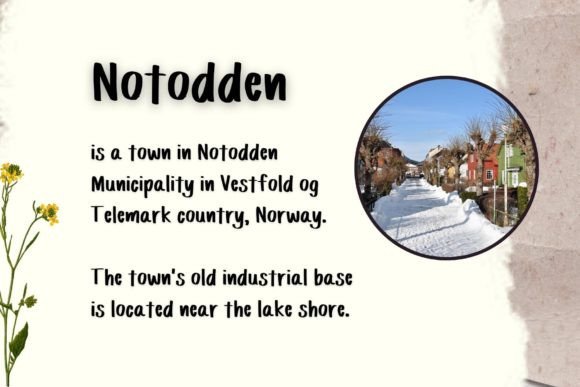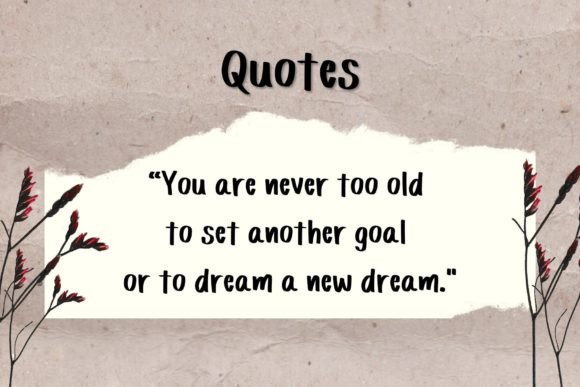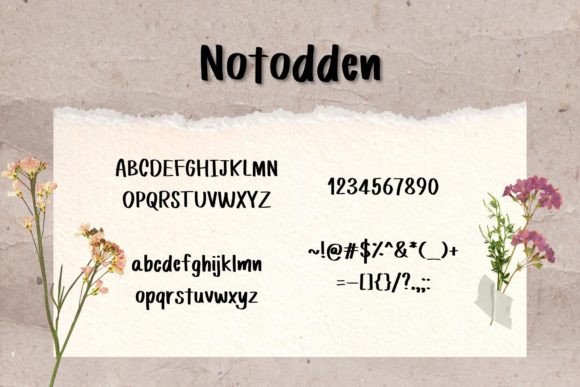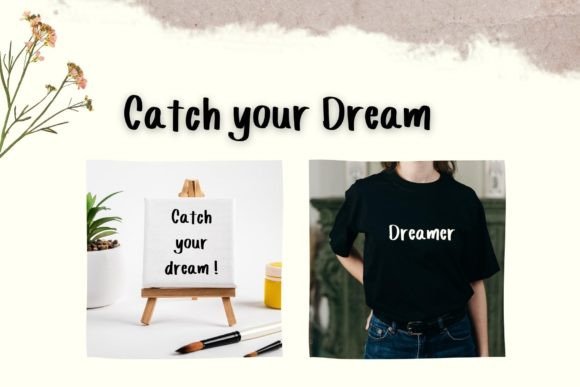
Introduction to Notodden Font
As a designer, there’s nothing quite like the thrill of brainstorming a new creative project. The blank canvas stares back at you, begging to be filled with color, texture, and personality. And then, it happens – the spark of inspiration strikes, and you know exactly what you want to create. For many of us, that spark is fueled by the perfect font. Enter the Notodden Font, a delightful script design that’s as fun to use as it is functional.
With its playful, handwritten feel and versatility across a wide range of applications, the Notodden Font is an absolute game-changer for designers. Whether you’re working on a t-shirt design, a digital presentation, or a heartfelt greeting card, this high-quality font is sure to elevate your project to the next level. And the best part? It’s available for free download with a transparent background, making it a valuable resource for any design project.
- Designed with a modern and sleek aesthetic, making it perfect for digital and print media
Honest Review: Notodden Font
I recently came across the Notodden Font, a high-quality design resource that caught my attention. As a designer, I’m always on the lookout for new and interesting fonts to elevate my creative projects.
The Notodden Font is a free download, which is a major plus in my book. It’s also available with a transparent background, making it super versatile and easy to work with. I love how it adds a touch of sophistication to any design.
- ✨ High-quality design with crisp, clean lines
- ✨ Versatile and easy to use
- ✨ Transparent background for seamless integration
- ⚠️ Limited character set (only a few weights and styles)
- ⚠️ May not be suitable for complex or large-scale designs
Overall, I’m really impressed with the Notodden Font. It’s a solid addition to any designer’s toolkit, and I appreciate the fact that it’s free to download. While it may have some limitations, it’s a great resource for simple, high-quality designs.
Tips for Getting the Most Out of Notodden Font
For optimal results, use the Notodden Font in conjunction with a high-contrast design. This will allow the font’s unique characteristics to shine through. Additionally, consider using the font in a creative project that requires a touch of Scandinavian flair.
The Notodden Font is perfect for a variety of design projects, including branding, marketing materials, and creative content. Its high-quality design and transparent background make it an ideal resource for designers and non-designers alike.